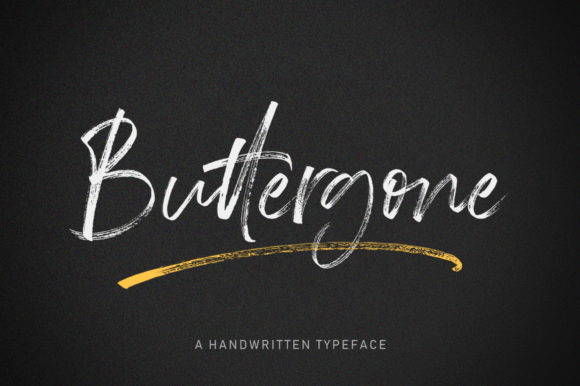
The Designer’s Delight: Unlocking the Power of Buttergone Font
I’ll never forget the time I was working on a branding project for a trendy coffee shop. My client wanted a font that was both cool and sophisticated, but I was struggling to find the perfect fit. That’s when I stumbled upon Buttergone Font, and it completely transformed my design. In this article, I’ll share my experience with Buttergone, its features, and how to make the most of it in your designs.
A First Impression: What Makes Buttergone Special
Buttergone is a cool and serious brush font with an irregular baseline that adds a touch of uniqueness to any design. Its contemporary approach to design makes it a standout, and it’s perfect for designers, crafters, and creative hobbyists looking to elevate their projects.
Here’s what I love about Buttergone:
• ✨ Unique and irregular baseline that adds character to any design
• ✅ Contemporary and stylish, perfect for modern brands
• ⚡️ Highly legible, even at smaller font sizes
• 🎨 Versatile and can be used for a wide range of design projects
As for quirks, I’ve noticed:
• 🤔 Some letters may appear a bit inconsistent in terms of width, which can be adjusted with kerning
• ⚠️ Limited support for non-English characters, so it’s best to use it for English-based designs
The Story Behind Buttergone: Designer Inspiration
Buttergone was designed with the intention of creating a font that was both modern and unique. The designer aimed to craft a font that would add a touch of personality to any design, while still maintaining legibility and style. Although the real story behind Buttergone’s creation may be unknown, it’s clear that the font has been crafted with care and attention to detail.
Q: What type of projects is Buttergone best suited for?
A: Buttergone is versatile and can be used for a wide range of design projects, including branding, packaging, posters, and more.
Q: Is Buttergone a difficult font to read?
A: No, Buttergone is highly legible, even at smaller font sizes, making it perfect for designs that require a clear and readable font.